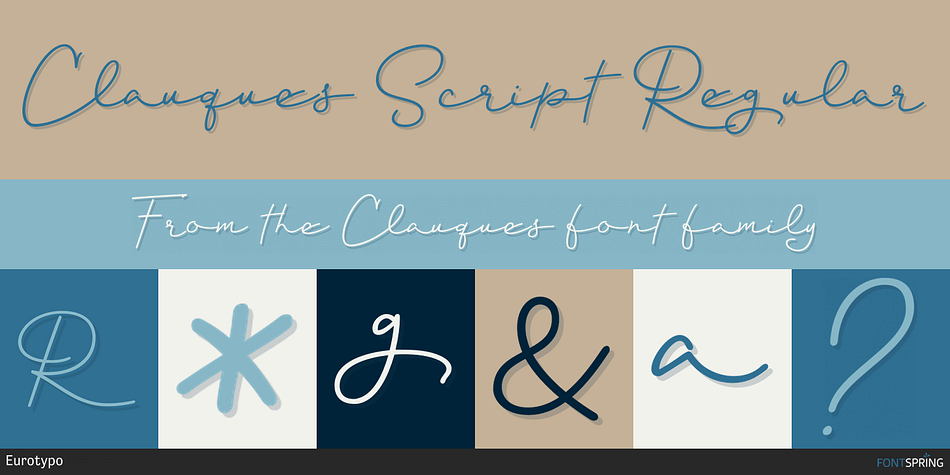
Clauques Script Regular
Designed by Carine de Wandeleer, Clauques is a sans serif, script and dingbat font family. This typeface has five styles and was published by Eurotypo.
Clauques Family includes four fonts and, in addition, a very useful extra elements.
Clauques Script and Clauques Script Light are elegant and youthful fonts with many stylistic variations, swashes and ligatures. Clauques Sans and Clauques Sans Light add a little seriousness. Both are designed to be combined but they also work great on their own. Clauques Ornaments has a lot of beautiful ornaments that work very well with the two styles of fonts. With all this, Clauques Family Font will allow you to create elegant works.